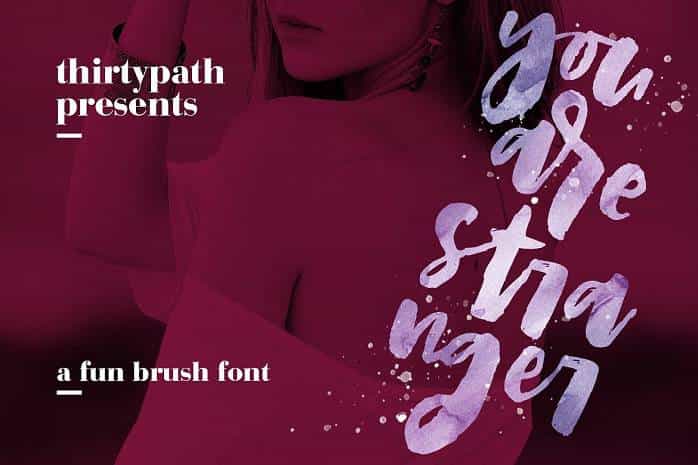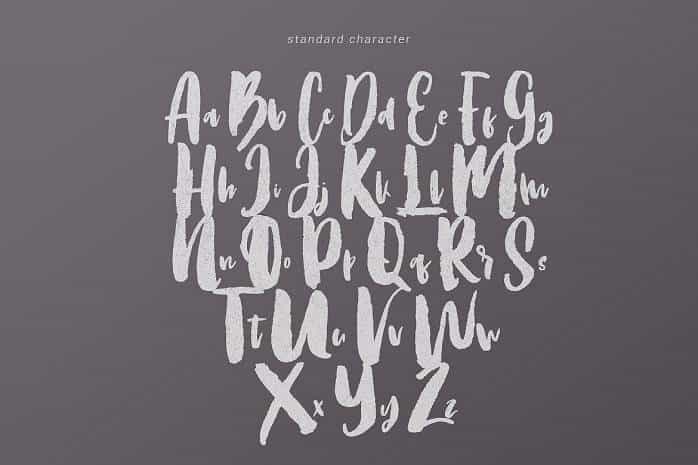
Discover You Are Stranger Typeface, part of the Brush collection—a versatile and unique font perfect for adding a personal touch to your projects. Download it for free and enjoy crafting designs with style, from invitations to social media posts. This font is available exclusively for personal use, giving you the freedom to create without limits. Unlock your creativity with You Are Stranger Typeface today!
Introducing You Are Stranger Brush Font!This is You Are Stranger, a straightforward way to create fantastic lettering, you just need to type in the words, and almost immediately you will see the amazing results. Perfect for: in ink or water color based designs or alone as a hand-brushed bold lettering.